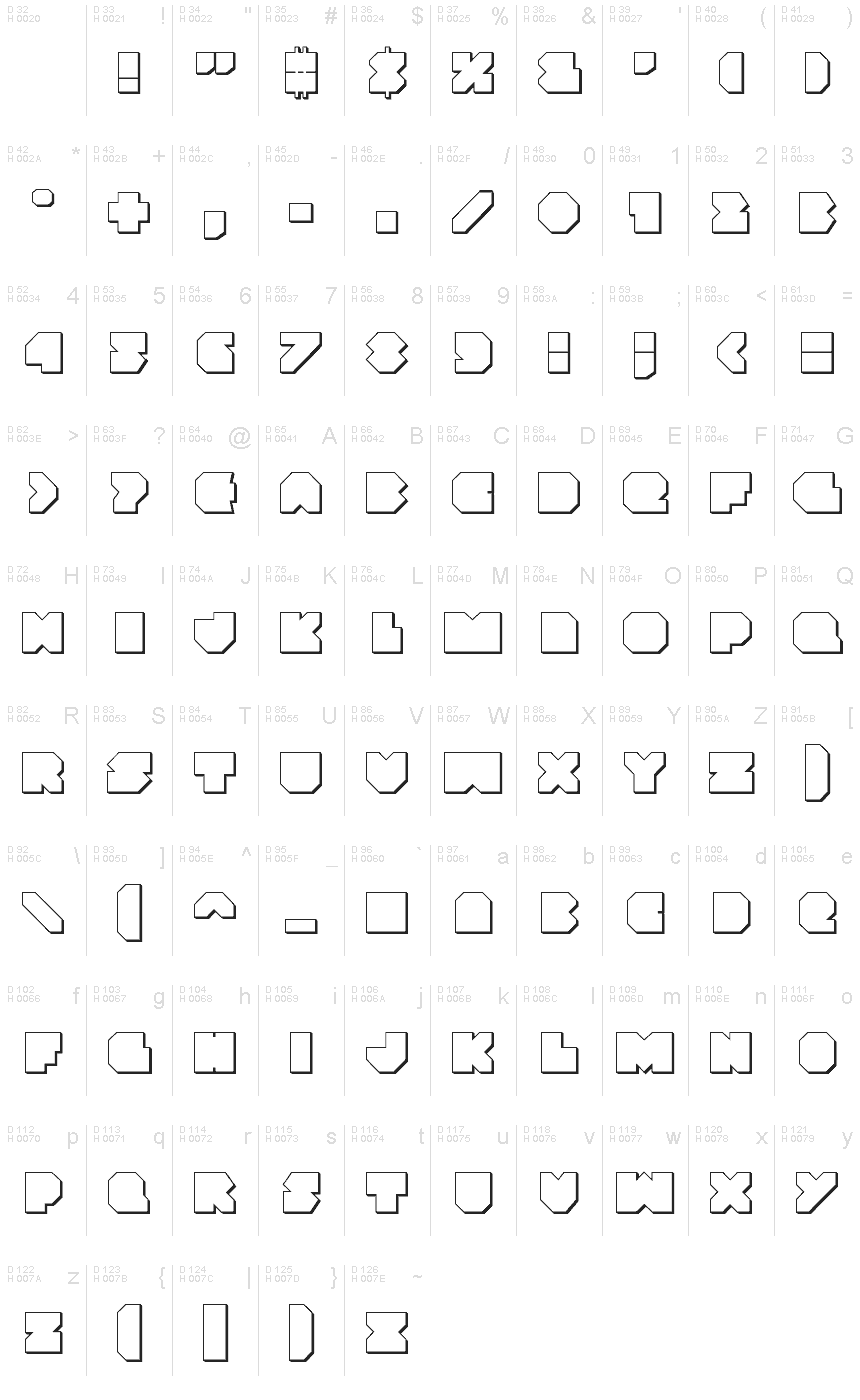
VX Rocket 3D
VX Rocket font by Iconian Fonts is a 3D techno display collection that invites your audience to plunge into a bold futuristic world. The geometric presence and digital influence of the set transcend all classic design standards with its tech-inspired strokes and expanded characters. The font presents itself as both modern and daring with clear intentions for what’s to come.